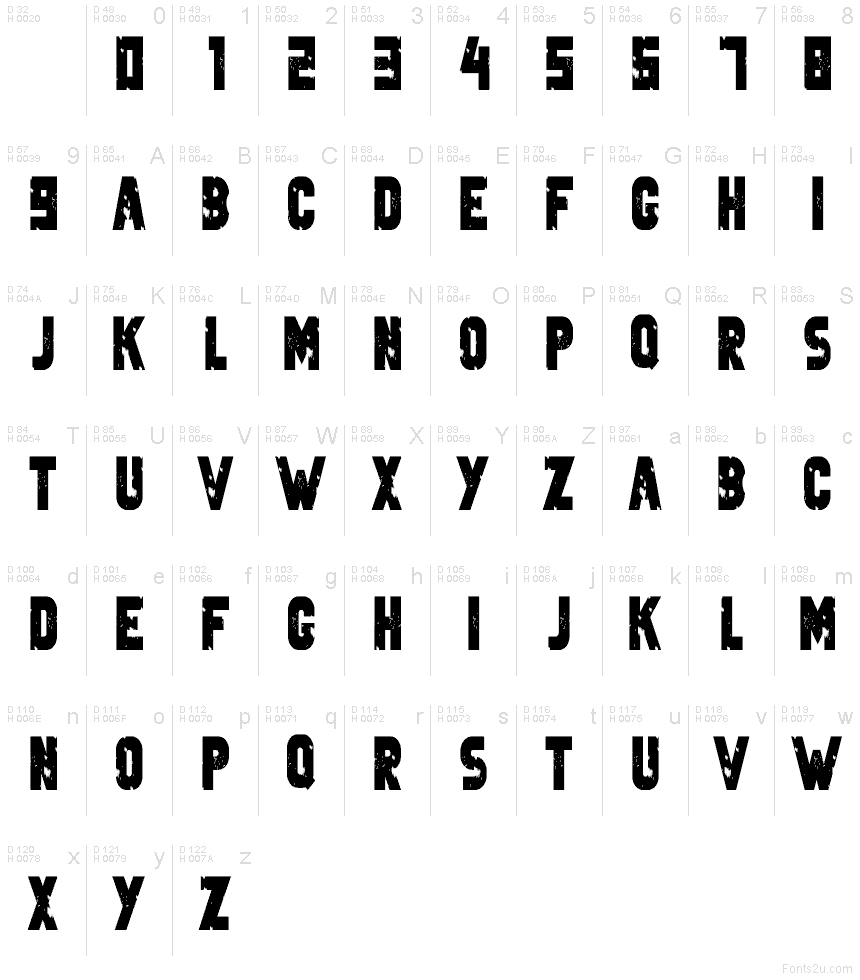
Burned
Burned font is an eroded, condensed, display font by Baru Rezeki10 that features worn-out characters with rugged texture. Composed in a bold weight, the typeface feels both imposing and intensely raw. The overall look is grunge-like which is ideal for use in contemporary applications for audiences with urban interests.
Use this free display font in short text on music album covers, poster designs, artistic book cover designs, apparel branding projects, website headings. It works just as well on skateboard design graphics as it does on video game interior scenes and mockups.